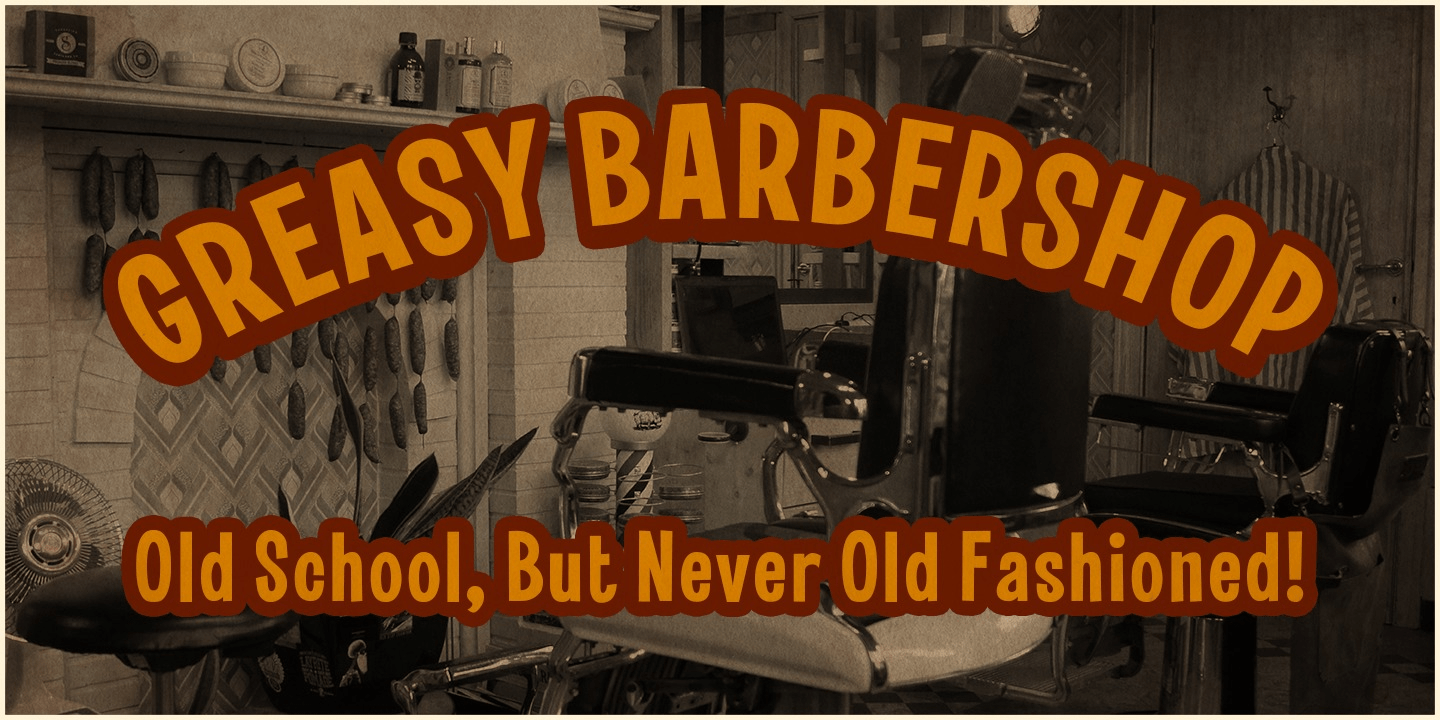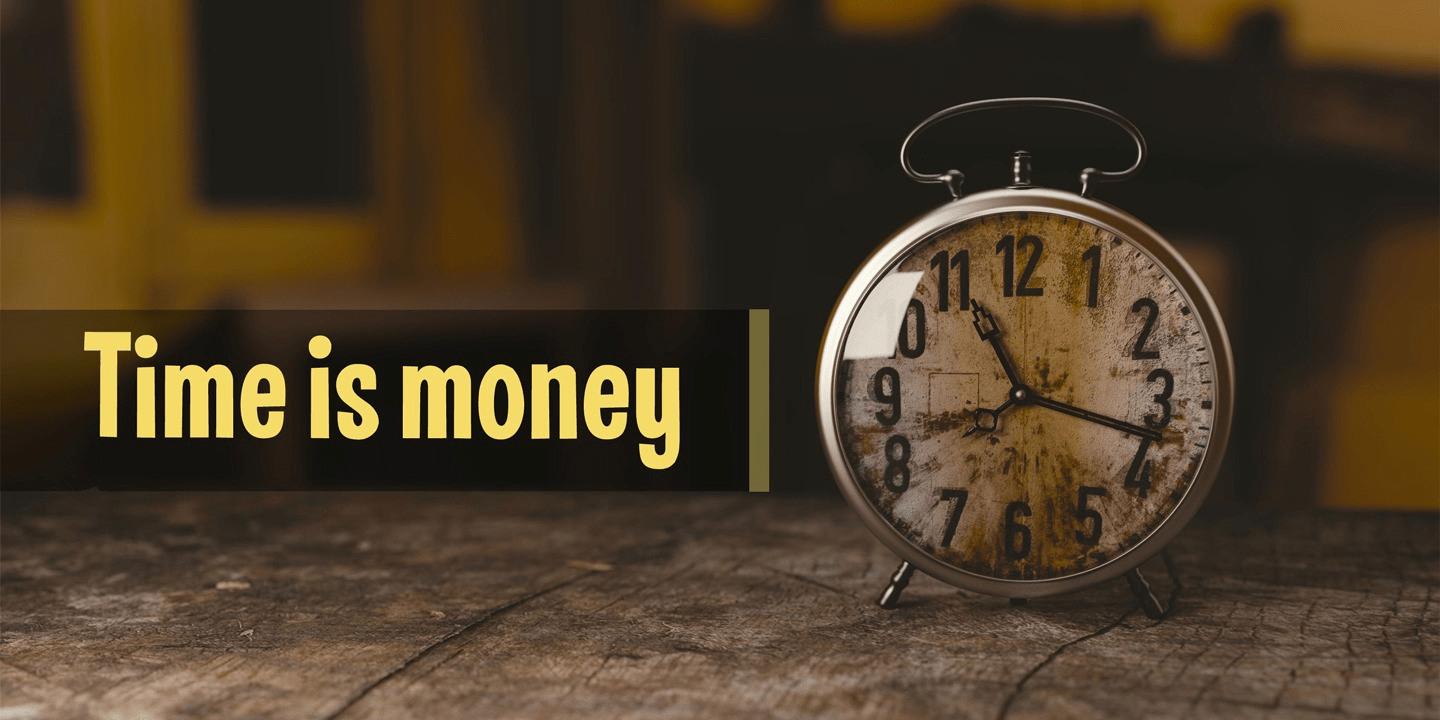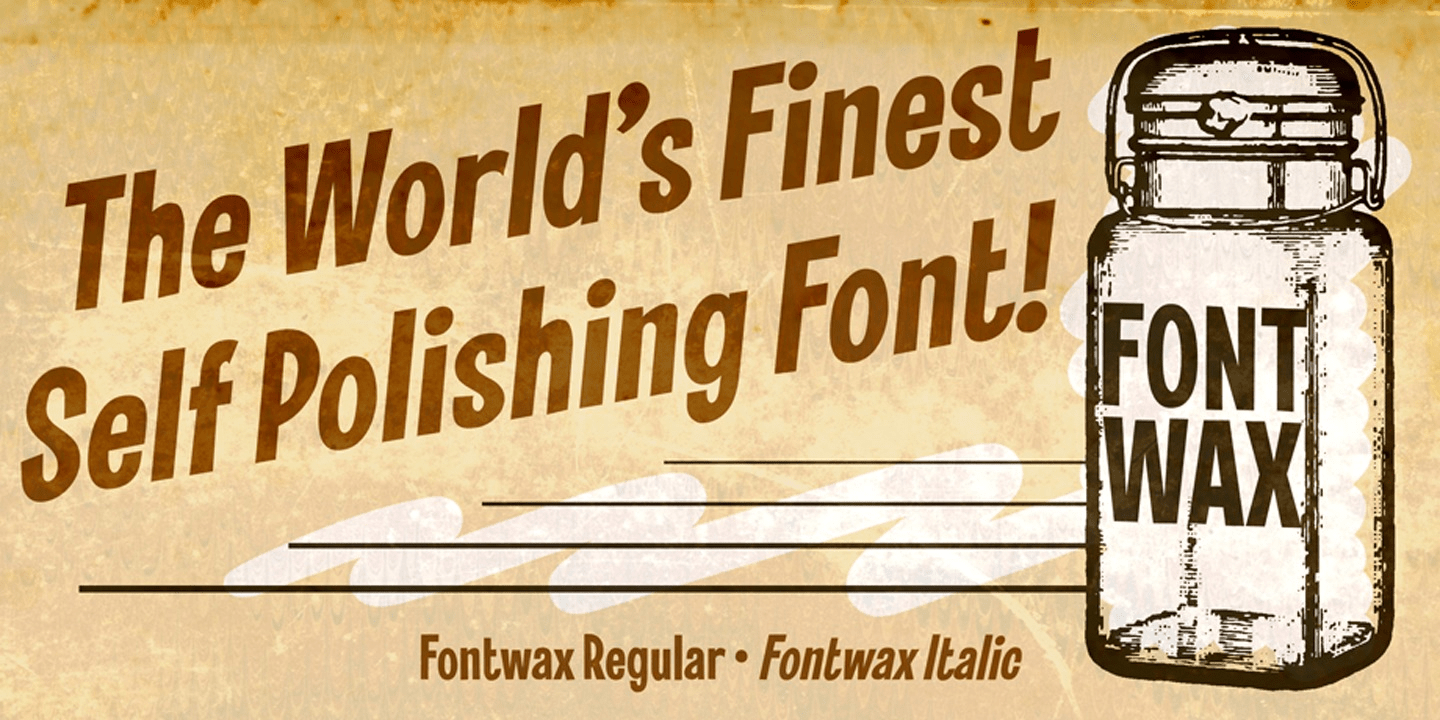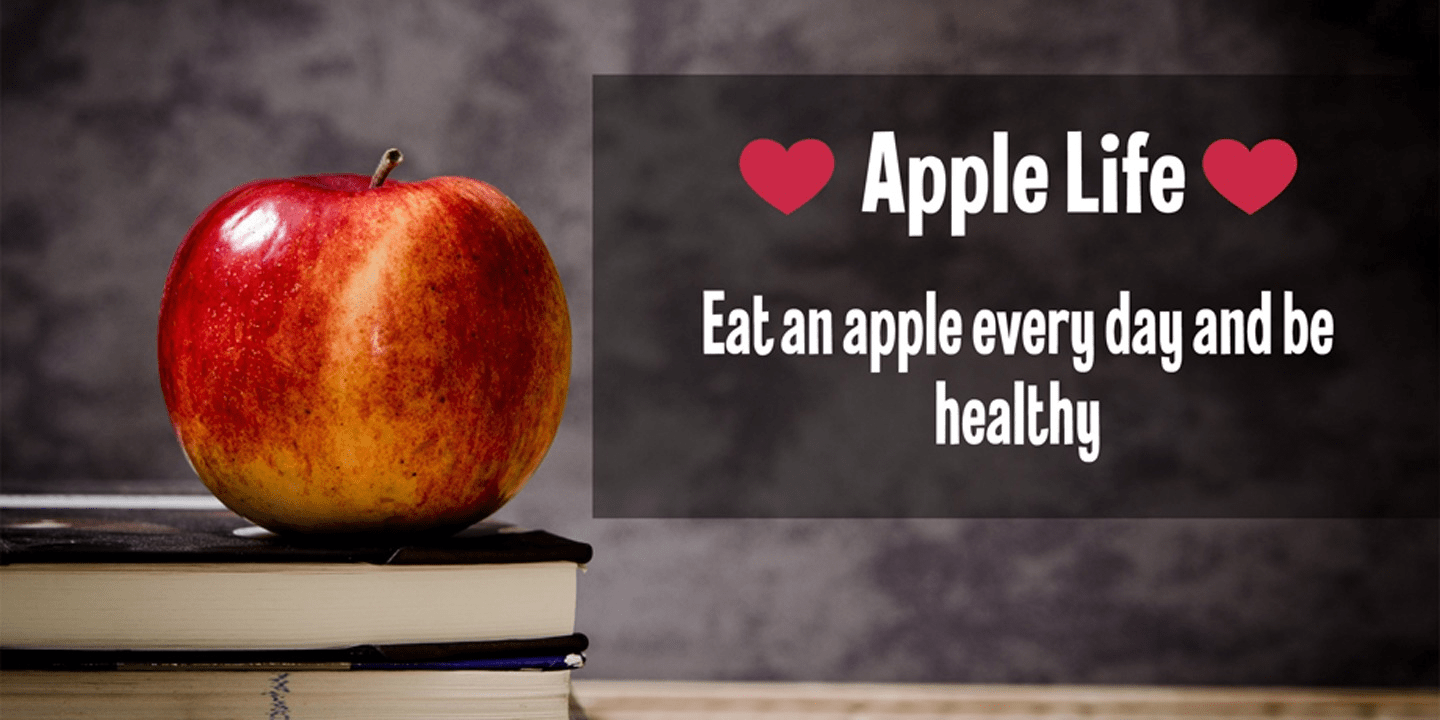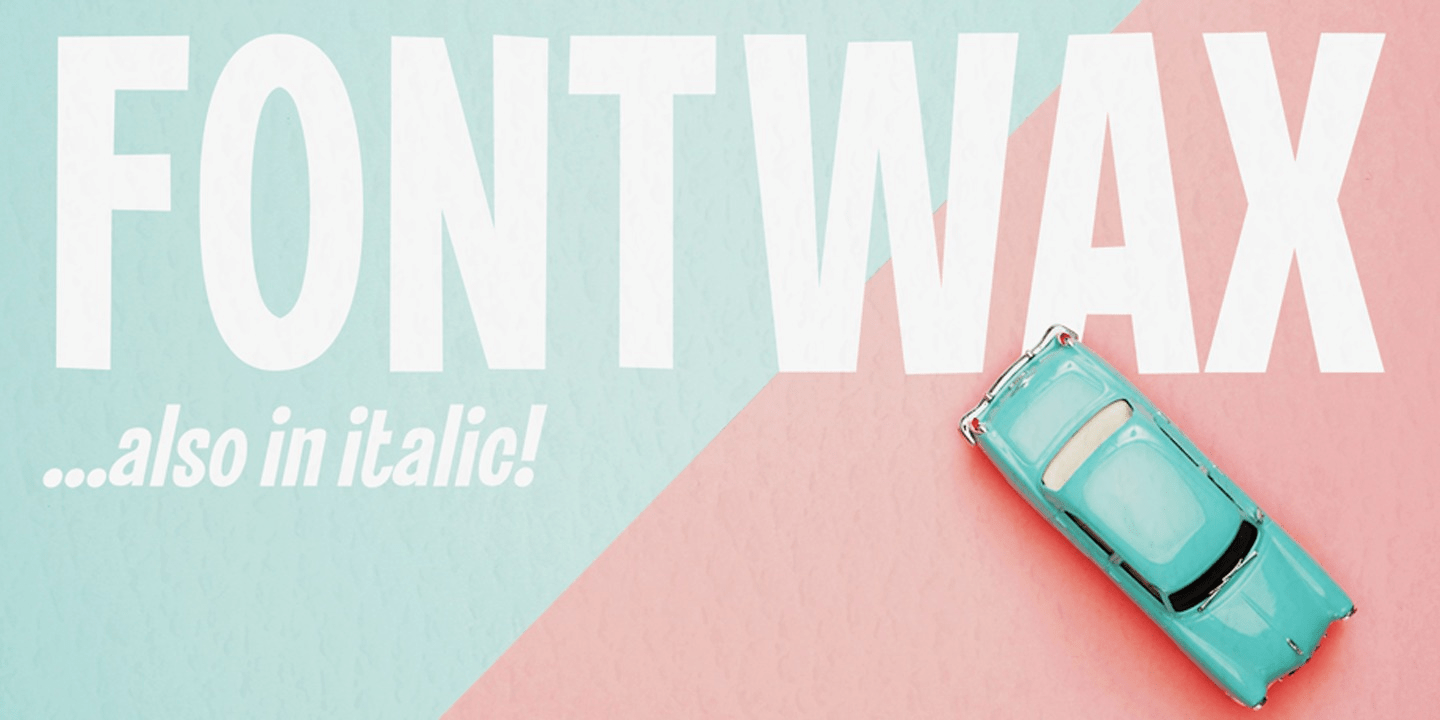
The Fontwax font is inspired by sign painters in sixties advertisings with a touch of Arts & Crafts. This style of type is instantly associated with advertising and design for high-end products. Fontwax is meticulously drawn for quality and readability.…